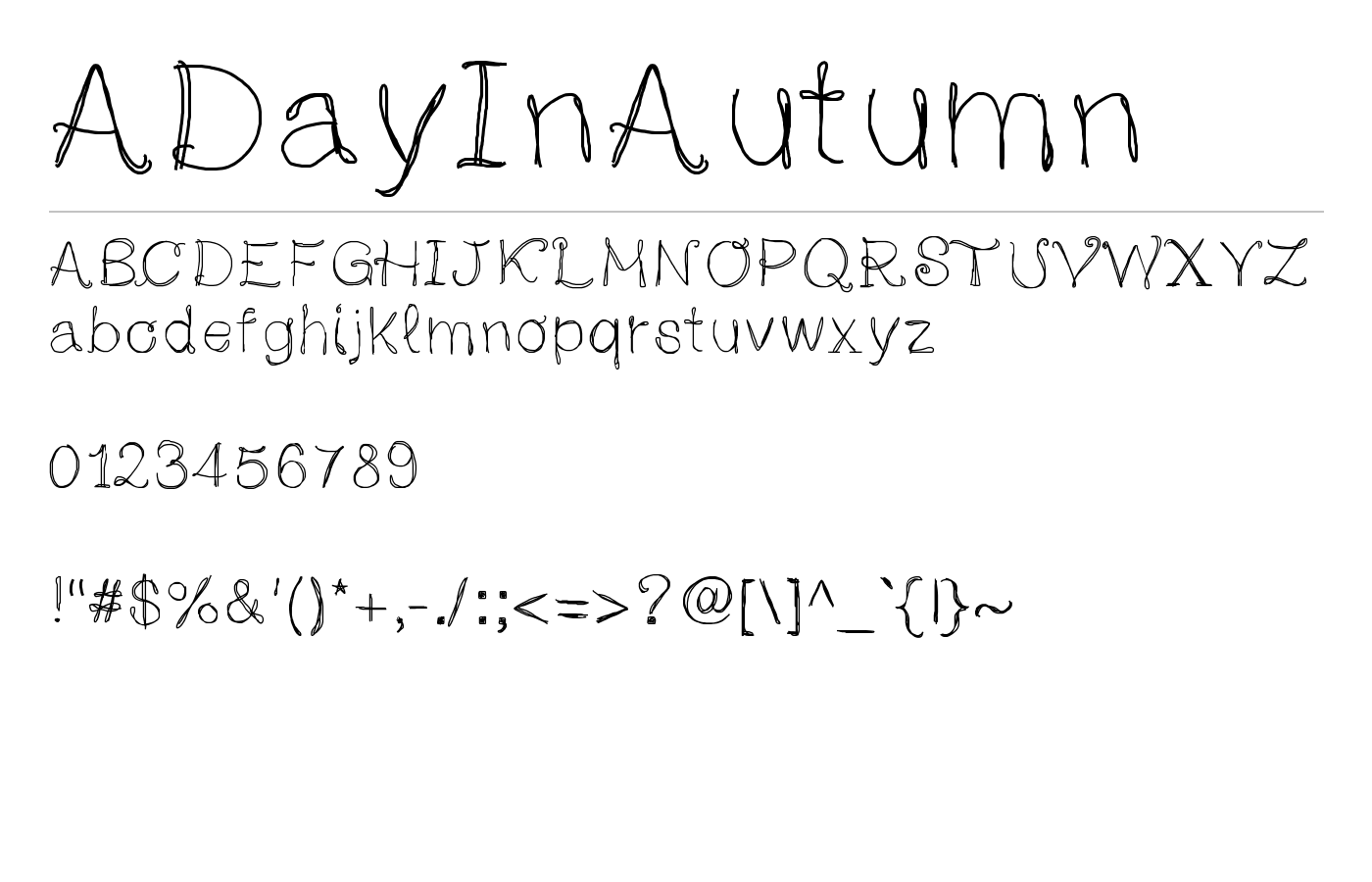
ADayInAutumn is a whimsical, hand-drawn font with a playful and slightly quirky personality. Its light weight, irregular strokes, and delicate, decorative details make it feel charming and informal, perfect for projects that want to convey creativity and warmth. This font works well for greeting cards, casual invitations, children’s books, and artistic branding where a friendly and approachable tone is desired.
ADayInAutumn Font
About ADayInAutumn Font